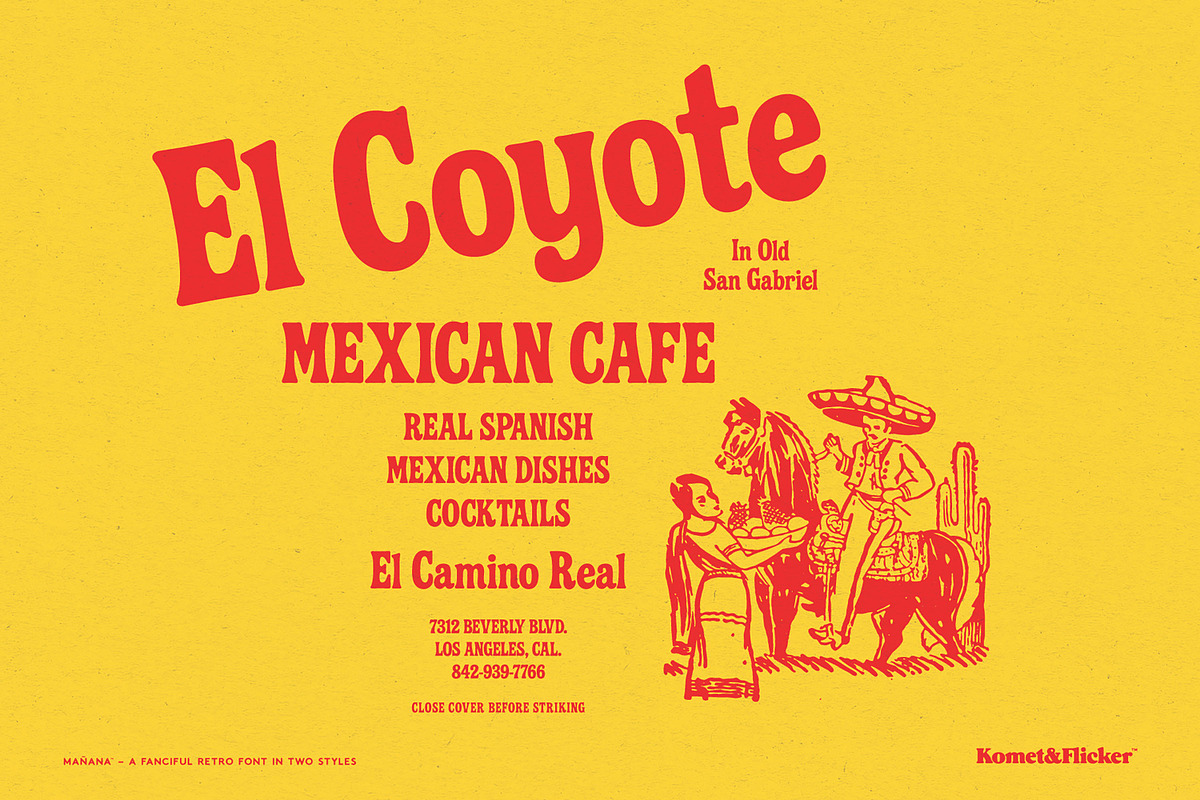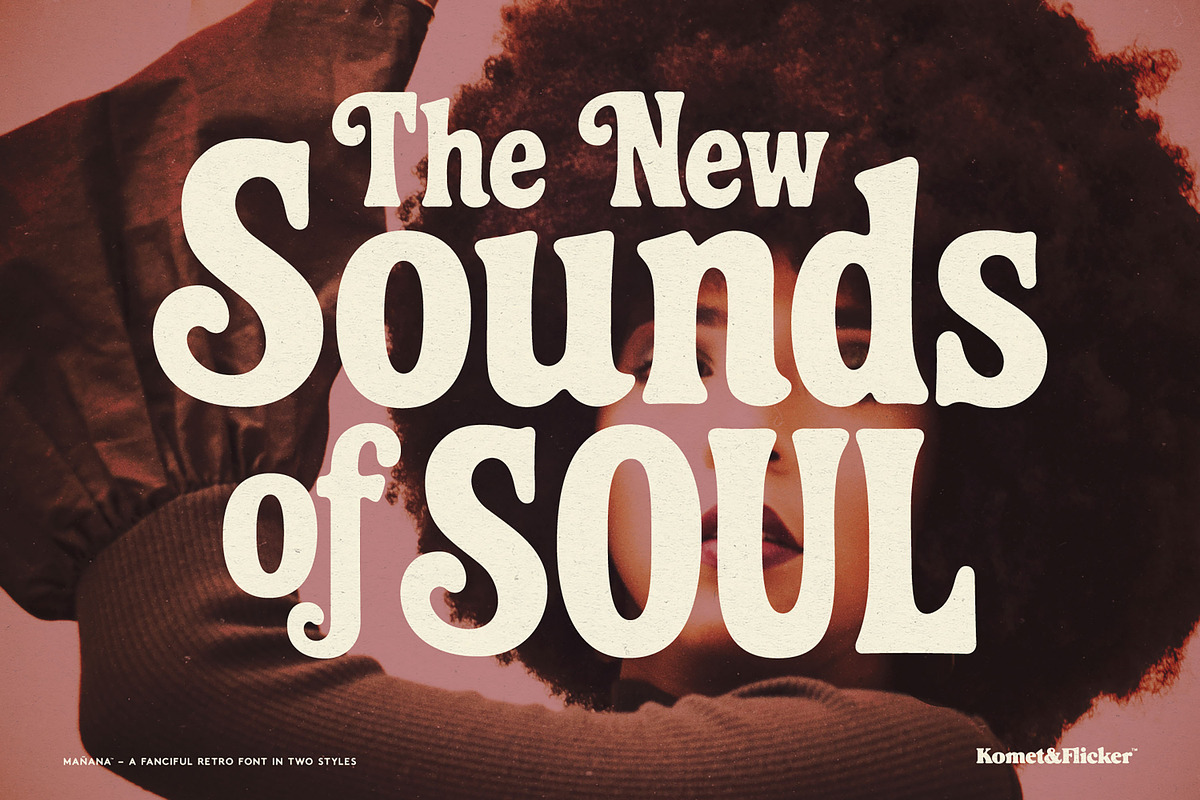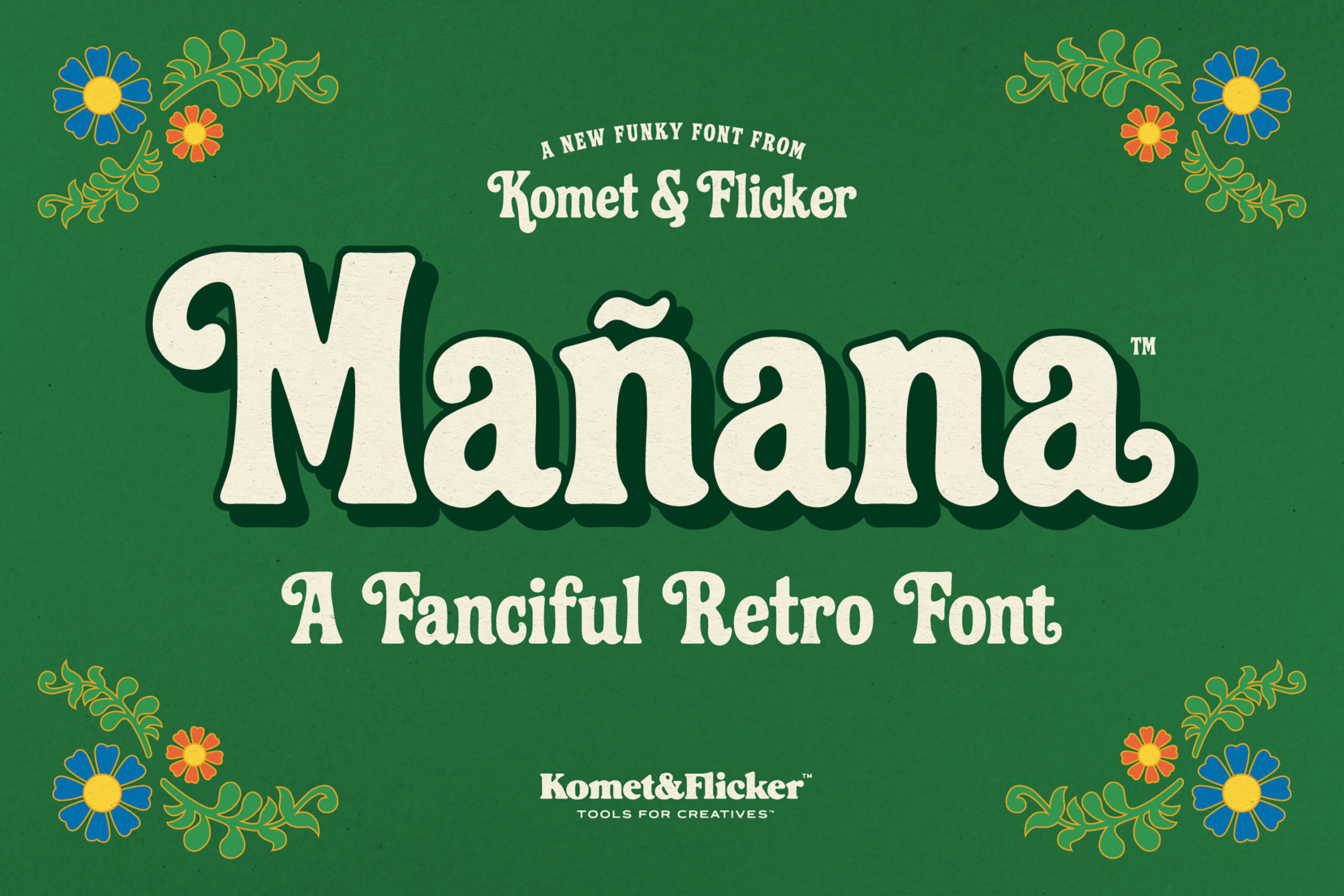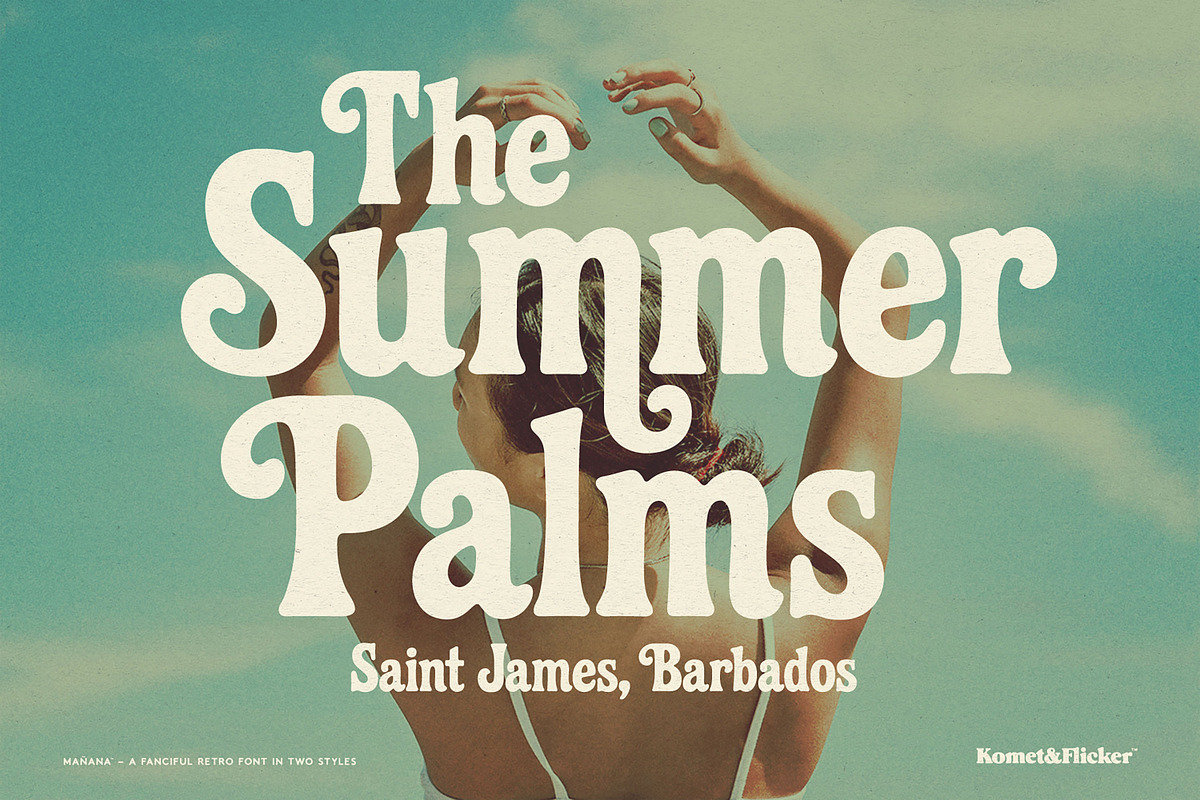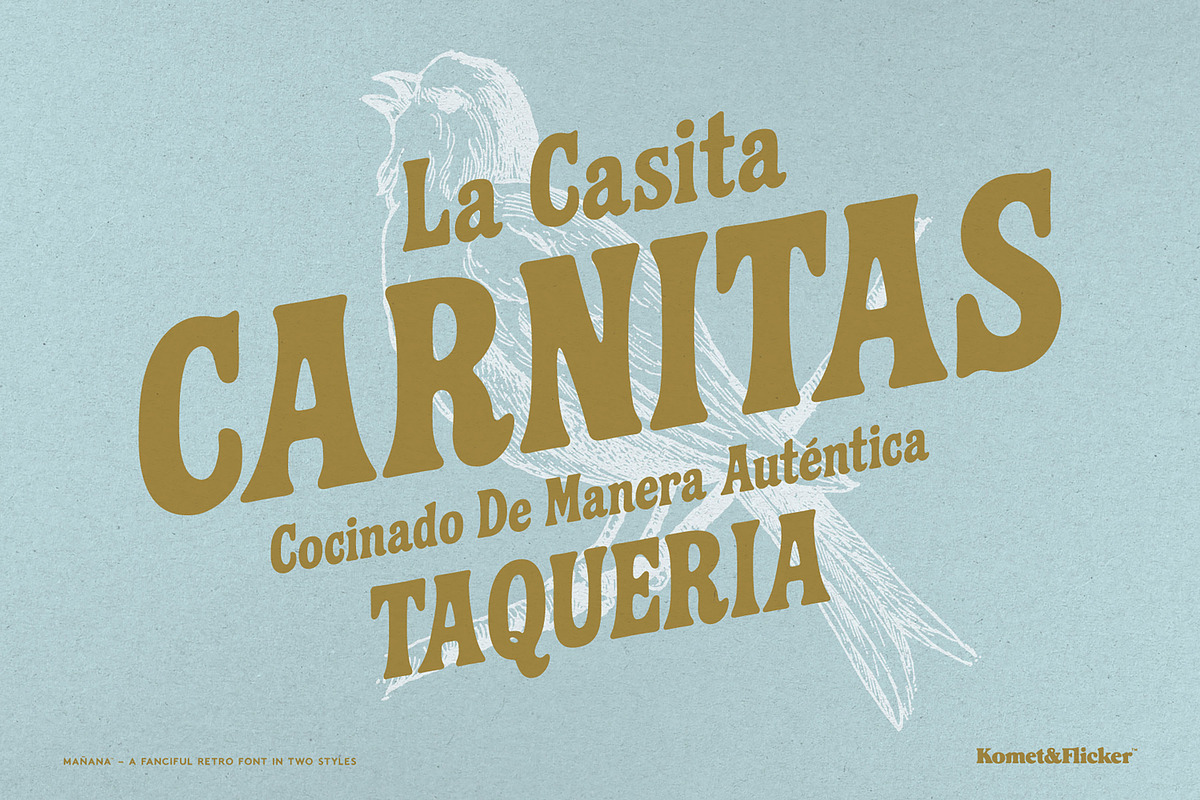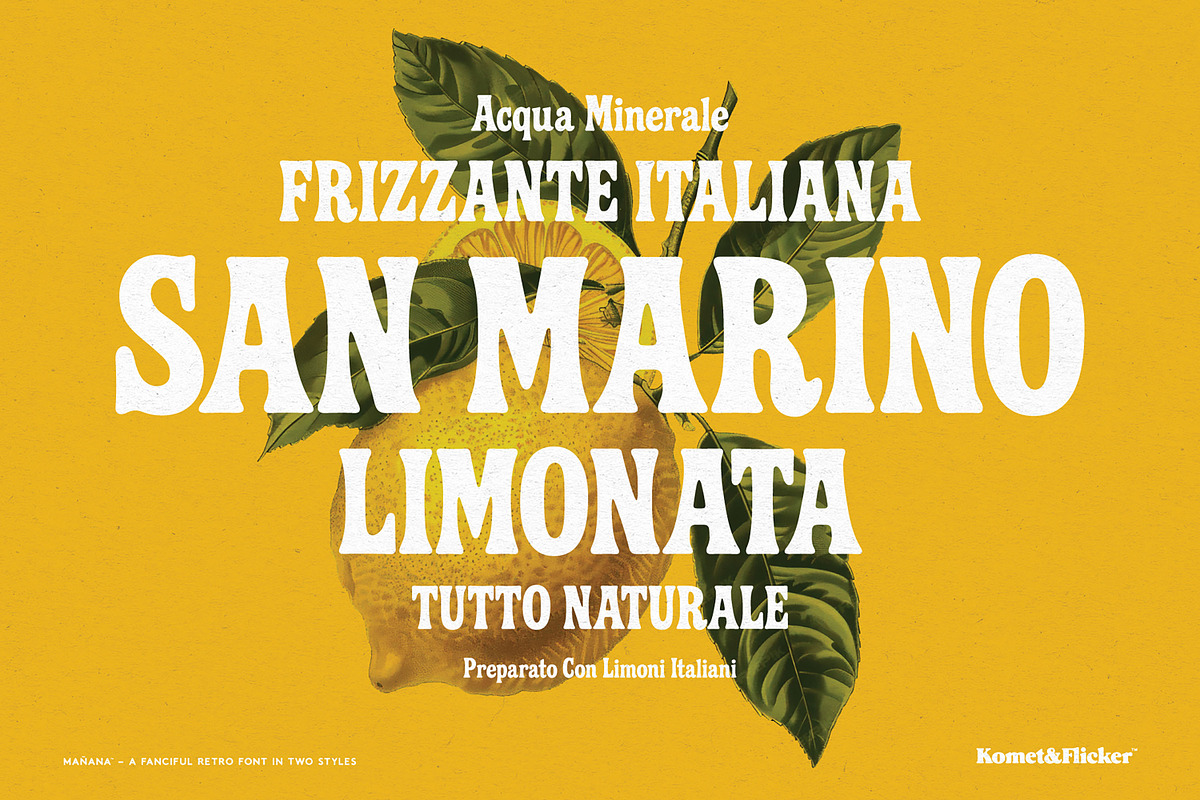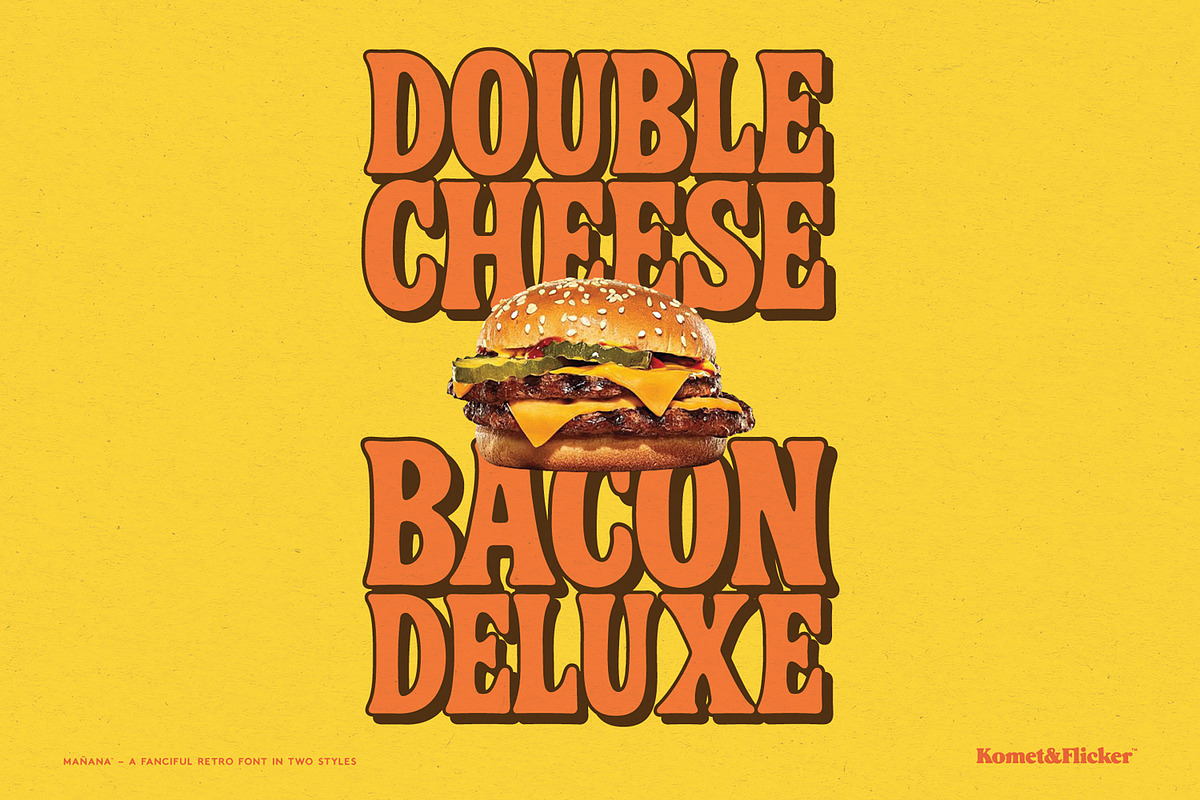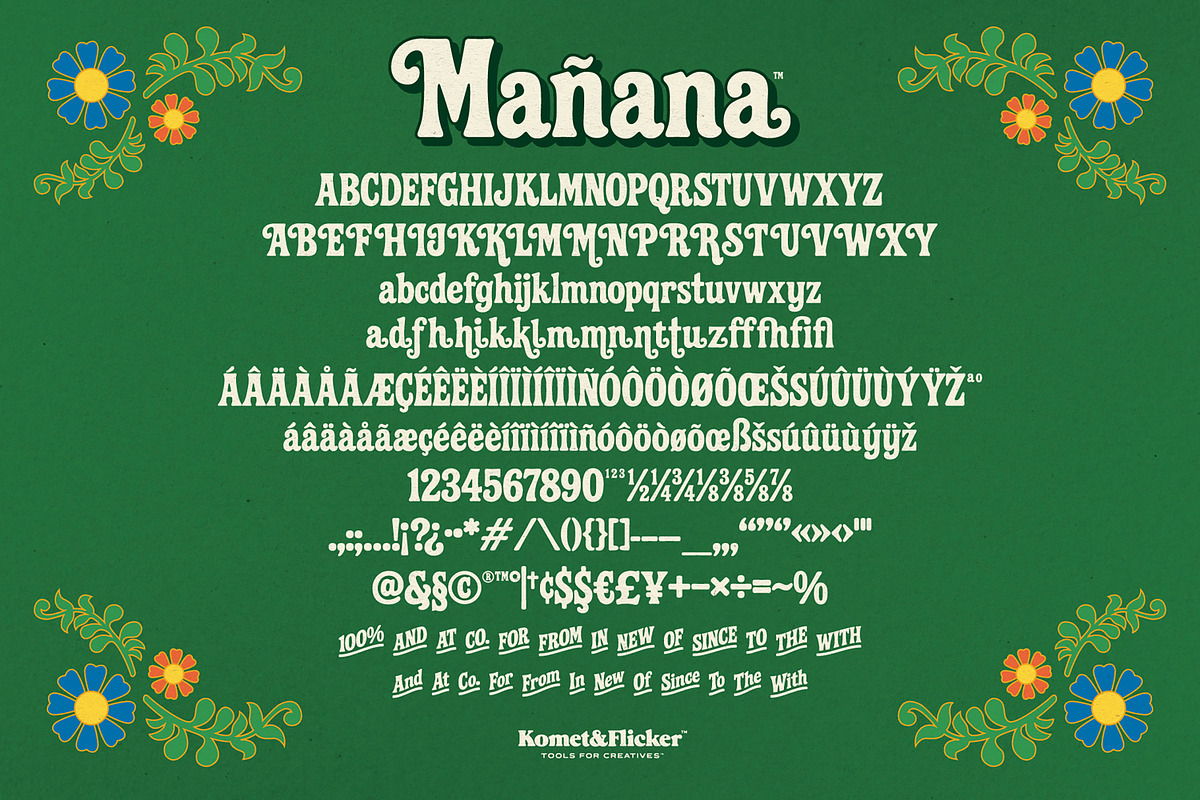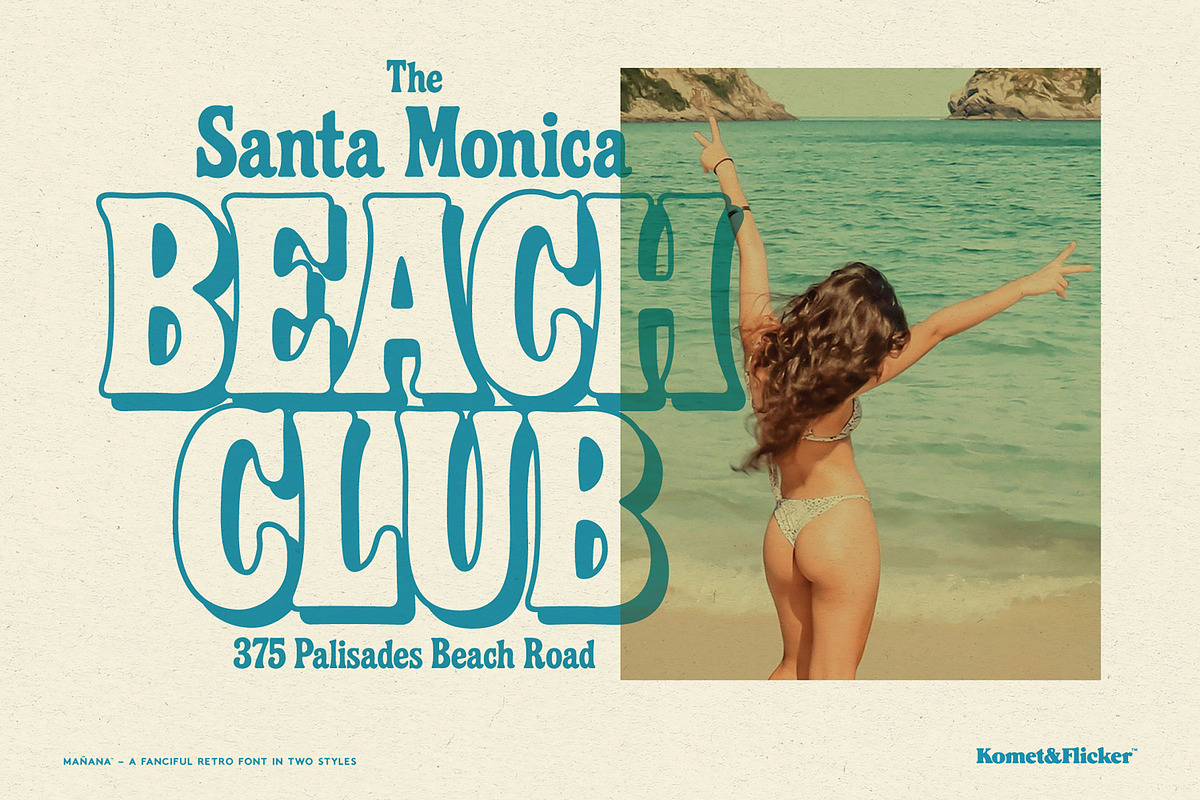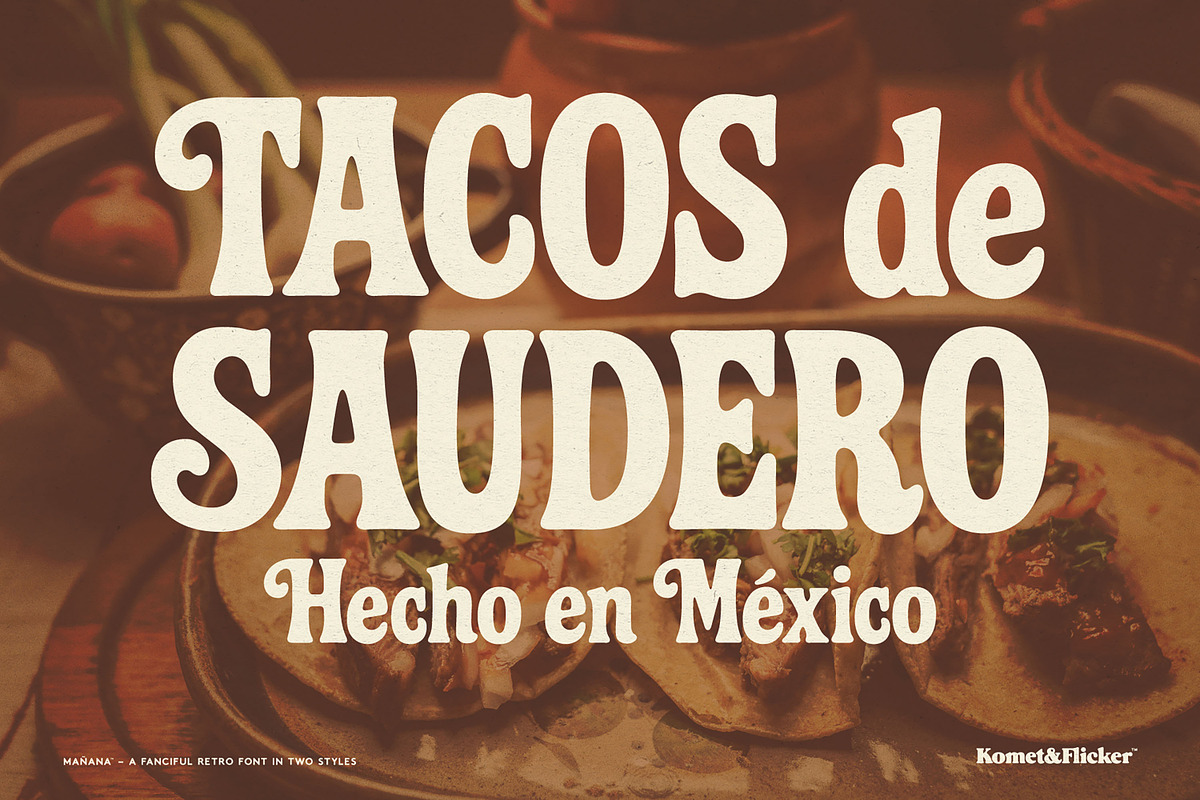
Mañana – A Fanciful Retro Font
Mañana is a bold and expressive serif font inspired by the hand-painted lettering of Mexican wall murals and food trucks. Softly rounded yet full of expressive character, this font blends handmade charm with a touch of retro flair, giving your work an authentic, approachable feel.
This font comes with a set of 13 custom connecting word glyphs in two unique styles (all caps and initial caps) and is perfect for adding custom flow to your text. Mañana also includes 43 alternate swash glyphs and ligatures.
Full A-Z basic uppercase and lowercase latin characters
Select multilingual characters
Numbers, punctuation, and select symbols
Pre-made common fractions
Set of 13 custom connecting word glyphs in two styles
43 alternate swash glyphs and ligatures